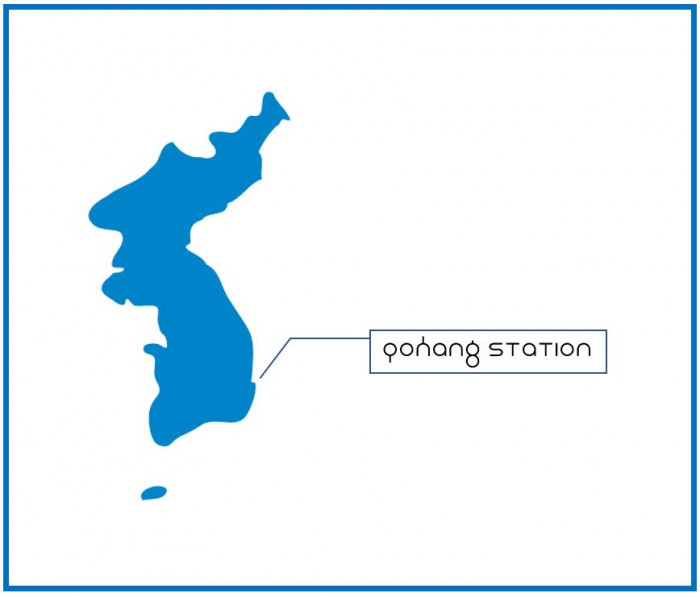
• A sci-fi font crafted while at the Pohang train station in Korea. Please enjoy
probably should differentiate from C and (
otherwise its good
Also should differentiate from U and V.
Anyway, 10/10
Also should differenciate with 0 and o
i still dont have it but seeing letters with a stem centered does'nt look right...